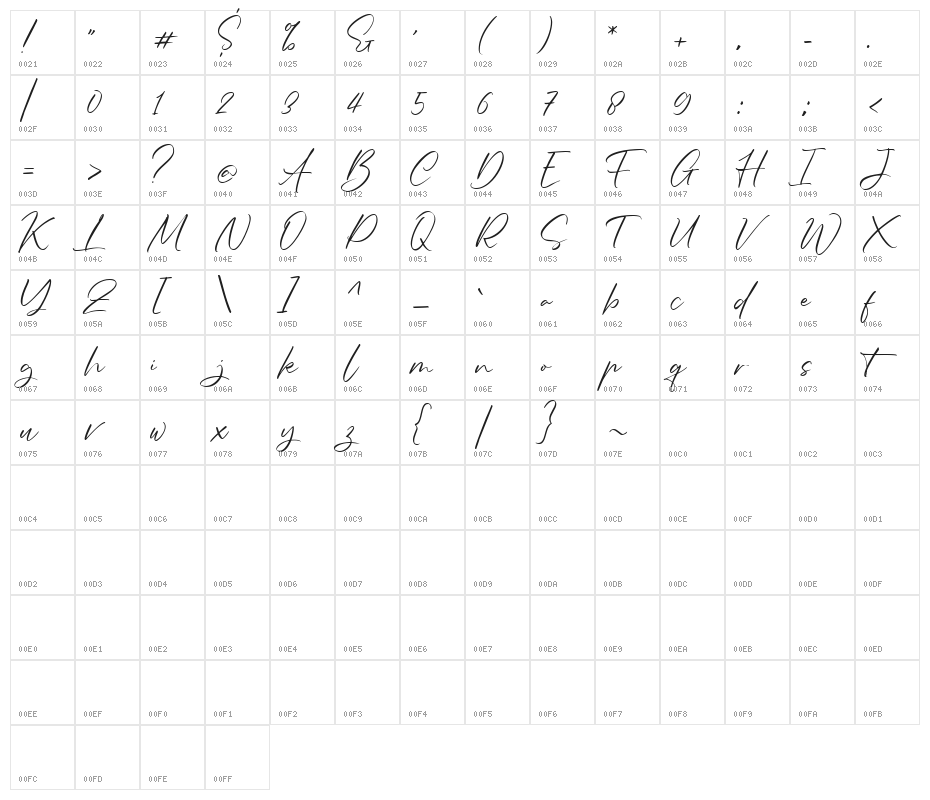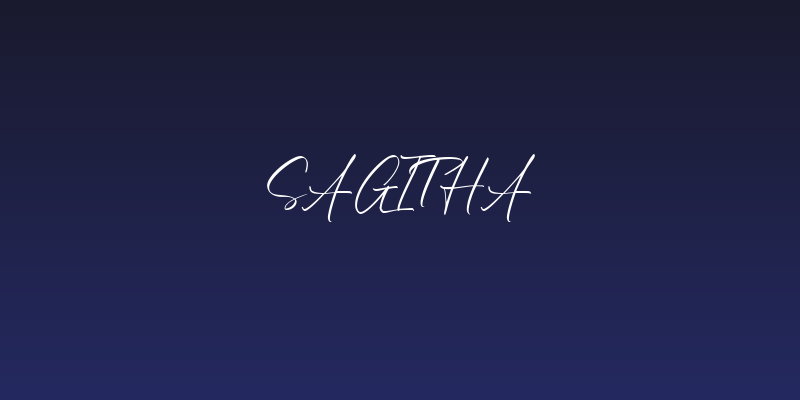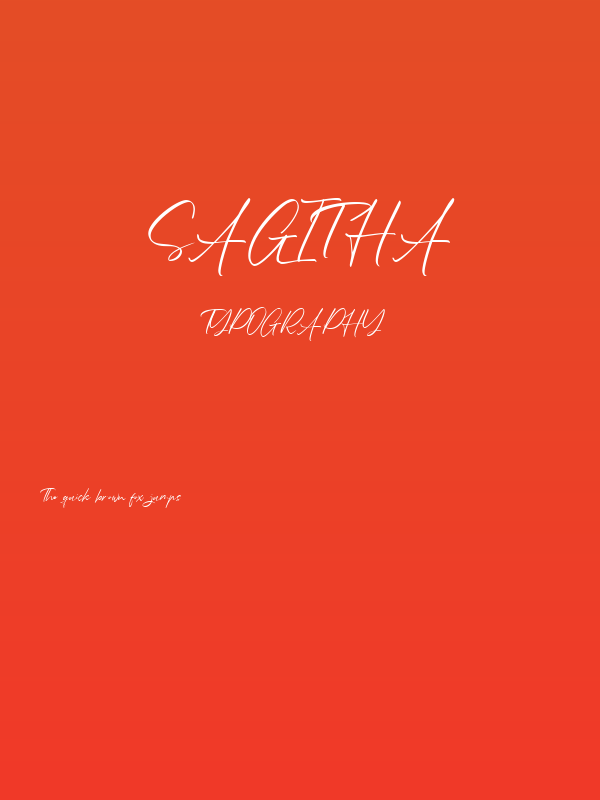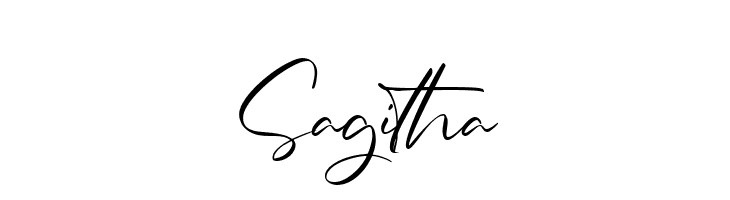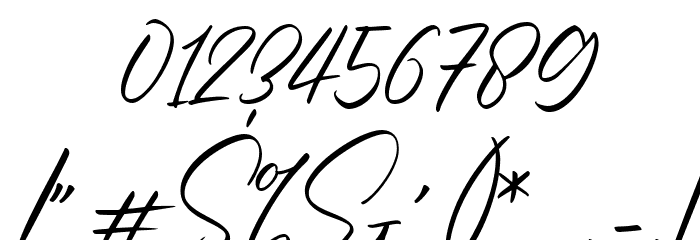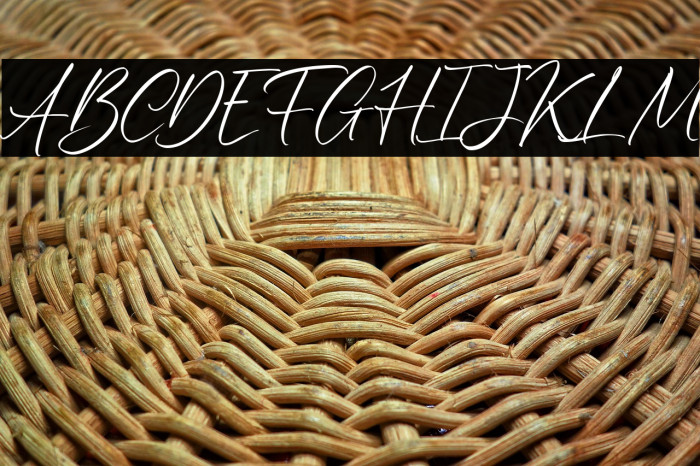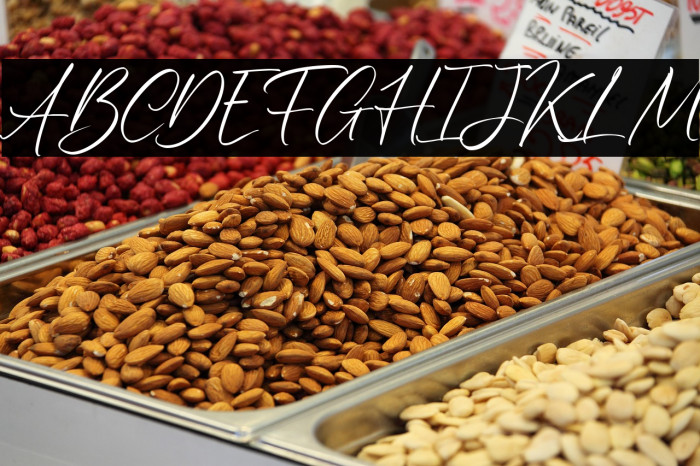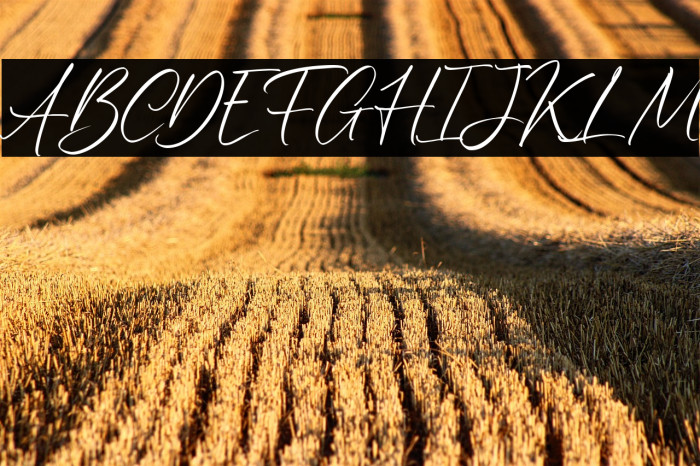
Sagitha Font
| Style général | Elegant and fluid |
| Cas d'utilisation | Logos, Invitations, Artistic projects |
| Projets proposés | Ideal for wedding invitations, greeting cards, personal branding, and artistic projects that require a touch of elegance. |